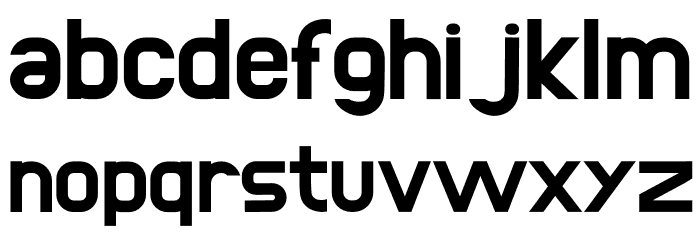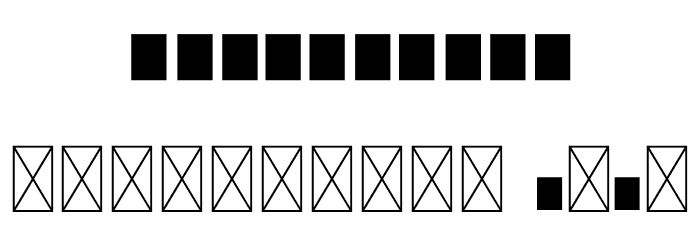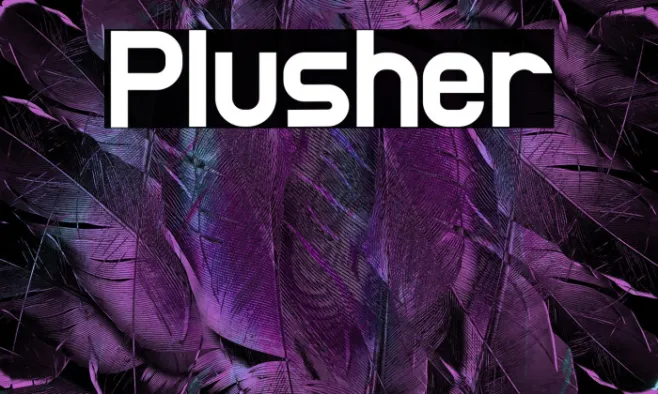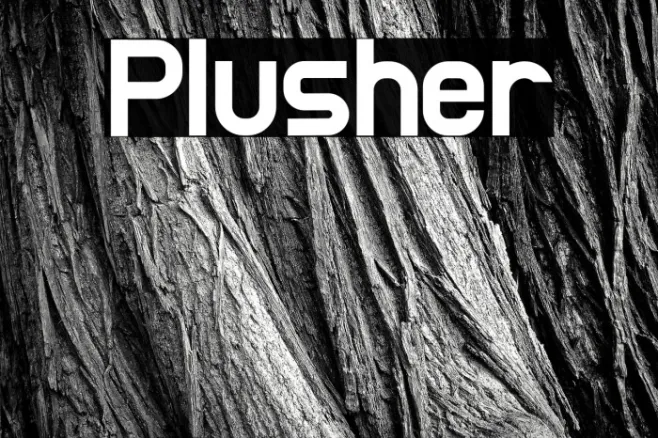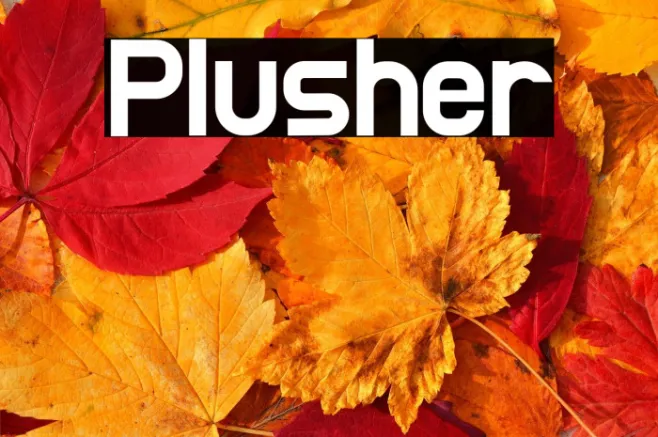
Plusher Font
This font features a bold and geometric design with a modern aesthetic. The uppercase letters are characterized by sharp angles and clean lines, giving them a futuristic feel. The lowercase letters maintain a similar style, with a slightly softer edge that complements the uppercase. The numerals are consistent with the overall geometric theme, providing a cohesive look across all characters. The special characters are designed to match the boldness and clarity of the alphabet, ensuring versatility in various design contexts. This font's strong presence makes it ideal for impactful headlines and branding.
- Proposed Projects: Ideal for branding, headlines, posters, and digital media that require a strong visual impact.